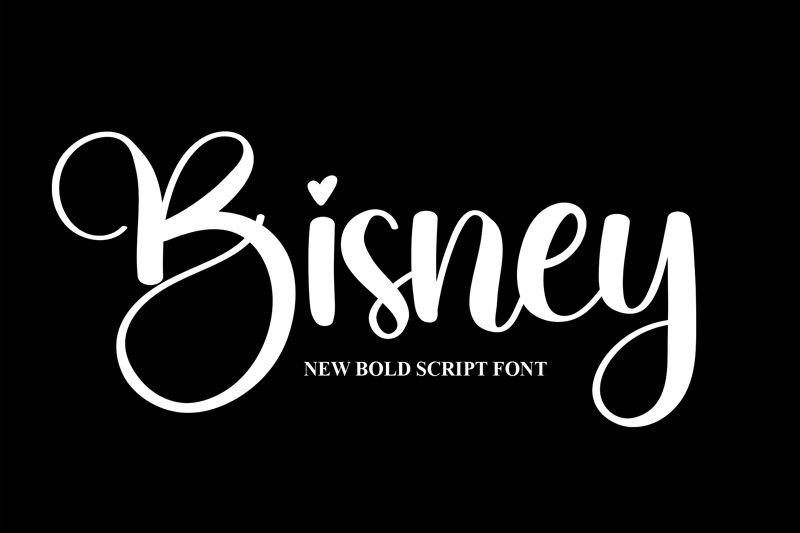
Bisney
Bisney, a creation of Scratchones, is a semi-light calligraphy font that exudes elegance and fluidity. Its sweeping curves and fine lines evoke the grace of traditional calligraphy while maintaining a modern clarity that ensures legibility. The delicate weight of Bisney strikes a balance between presence and subtlety, making it an ideal choice for branding, wedding invitations, and personalized stationery.
With its aesthetic appeal rooted in the timeless beauty of hand-lettered artistry, Bisney offers designers a versatile tool for adding a touch of sophistication to their projects. Whether used for headings, signatures or as an accent font, Bisney's stylish allure enhances the visual narrative with its bespoke charm. Embrace Bisney for your next creative endeavor and let its distinctive style convey your message with both warmth and refinement.